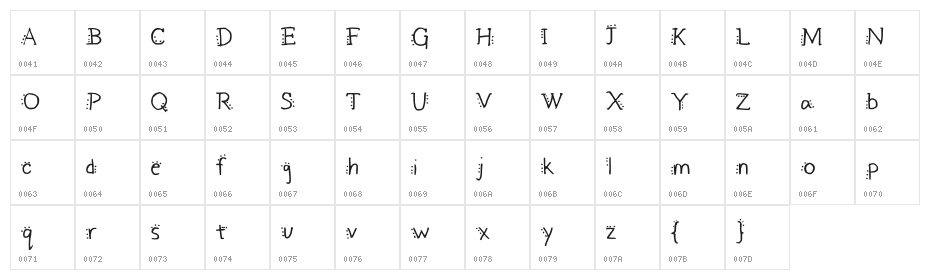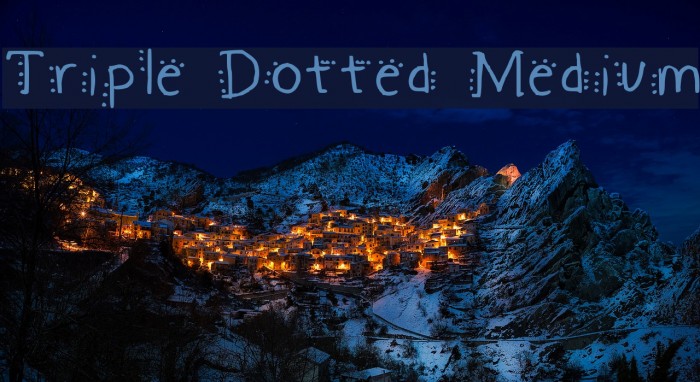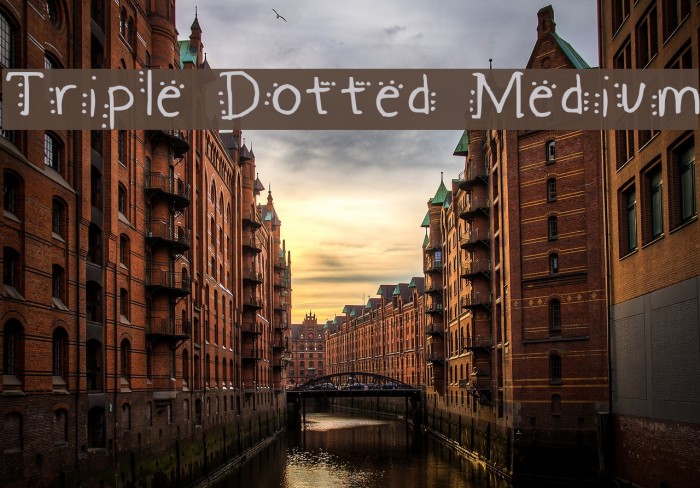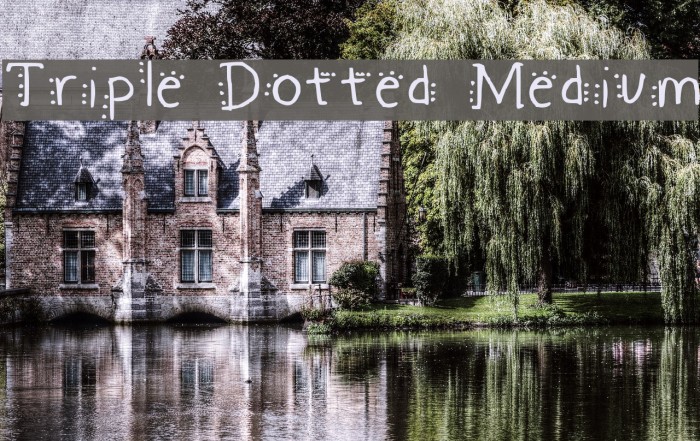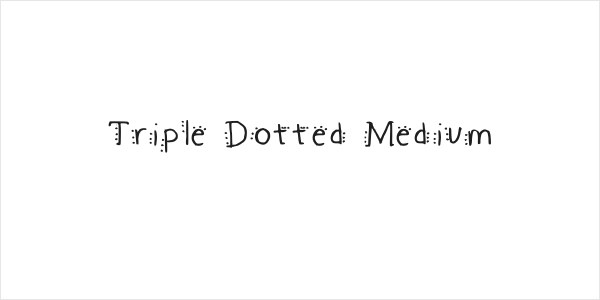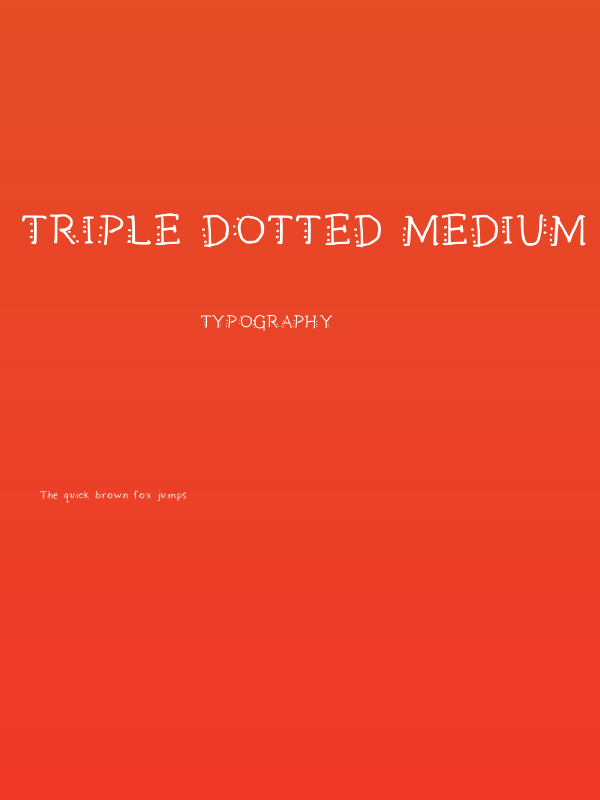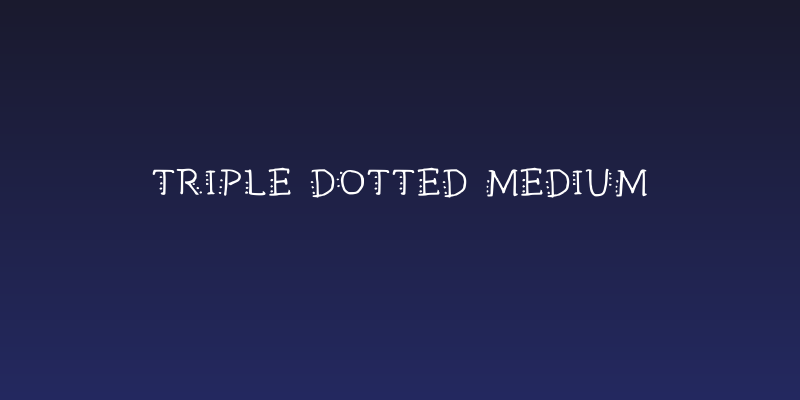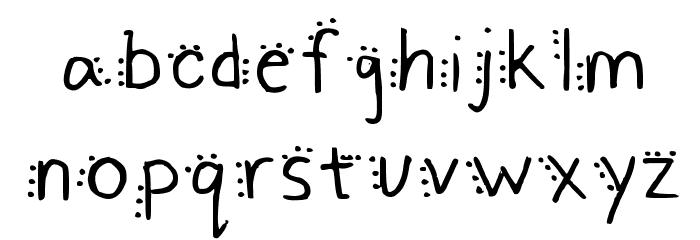
Triple Dotted Medium Font
Triple Dotted Medium Description
This playful and whimsical font features a unique design where each character is adorned with three dots, giving it a distinct and decorative appearance. The uppercase and lowercase letters maintain a consistent style, with clean lines and rounded edges that add to its friendly and approachable look. The numbers and special characters follow the same dotted theme, ensuring uniformity across all glyphs. This font's design is both eye-catching and fun, making it suitable for creative projects that require a touch of personality.